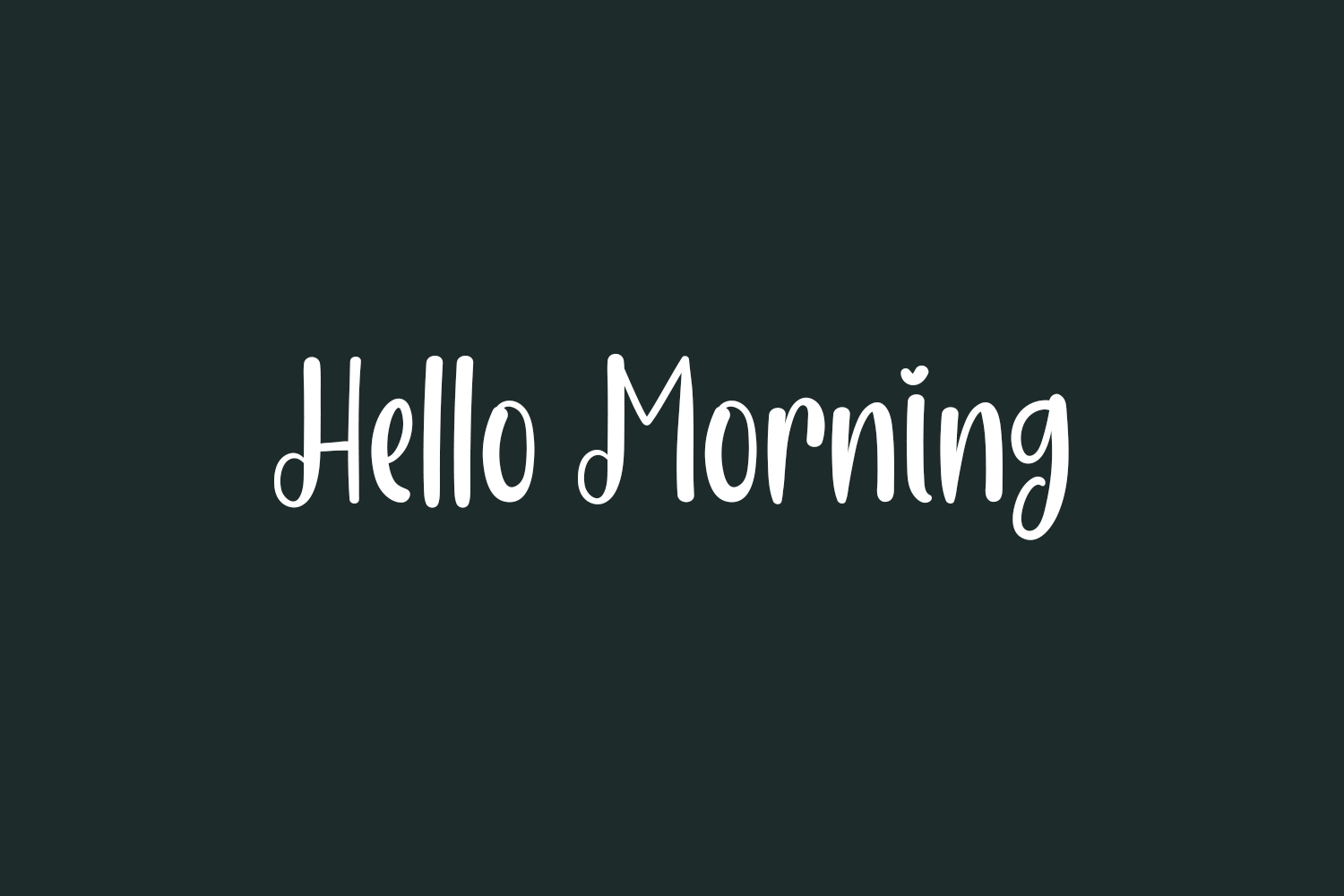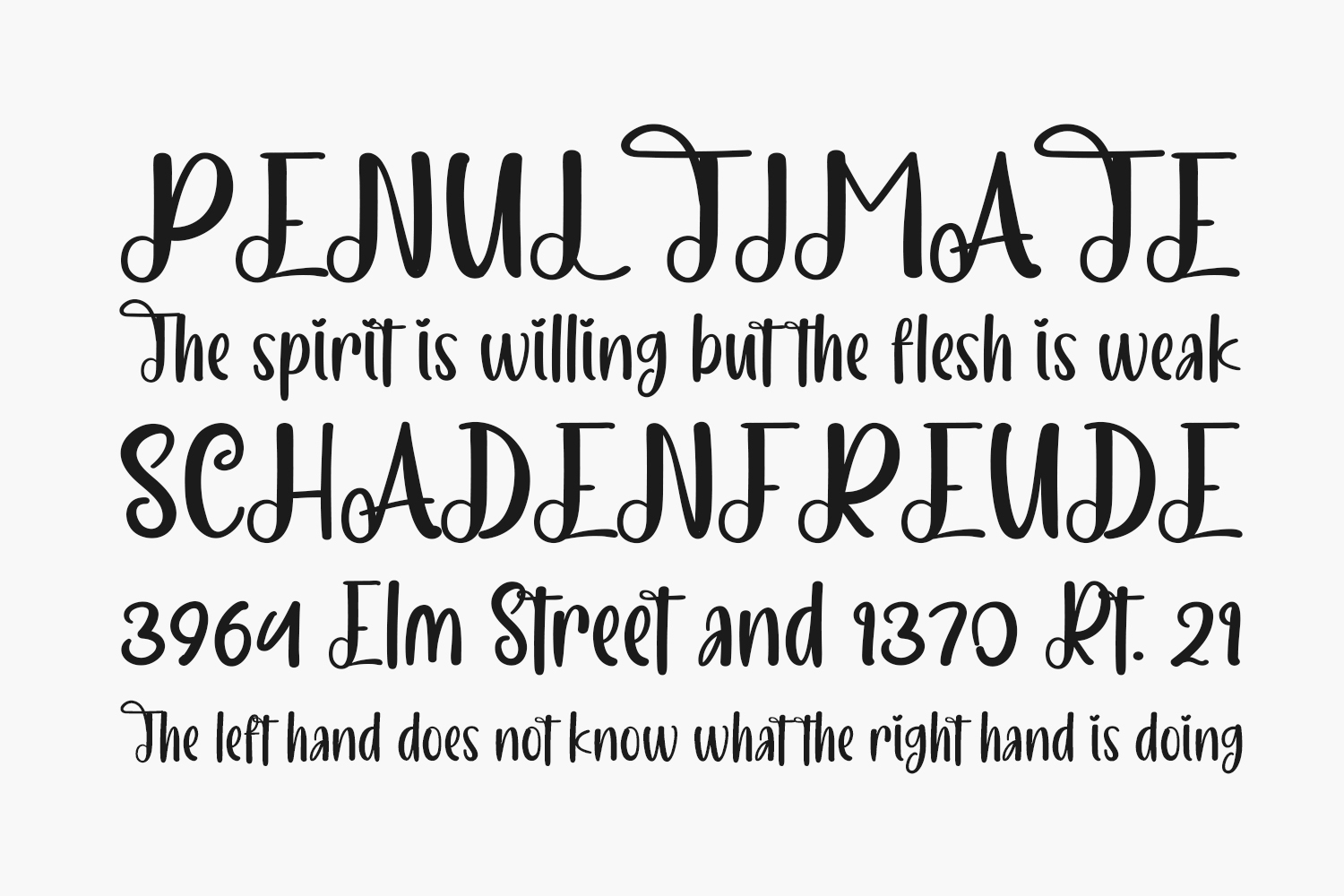
Hello Morning Free Font is an exquisite and gracefully handwritten font, perfect for enhancing wall displays, wedding invitations, logos for social media posts, advertisements, product packaging, product designs, labels, photography, watermarks, invitations, stationery, and any project seeking remarkable typography. Hello Morning Free Font is free for personal use only. Please purchase the full version for commercial use.